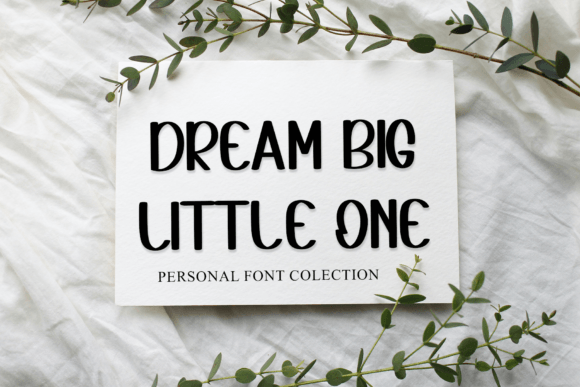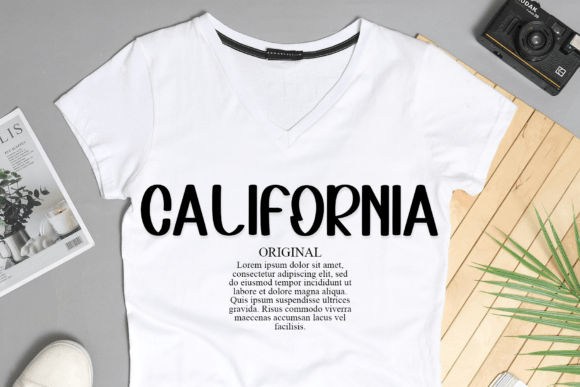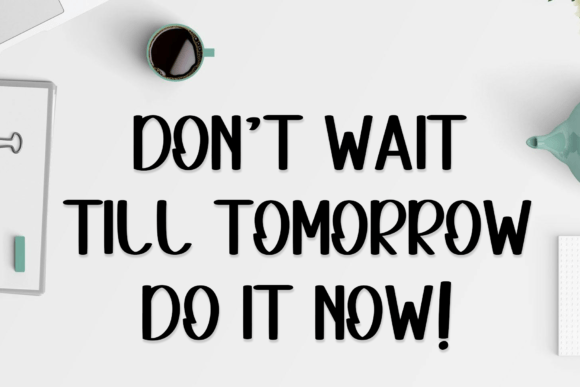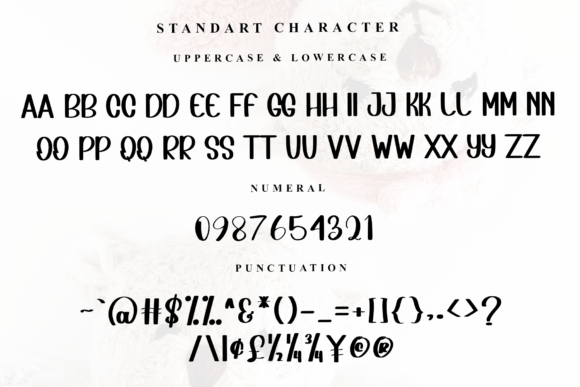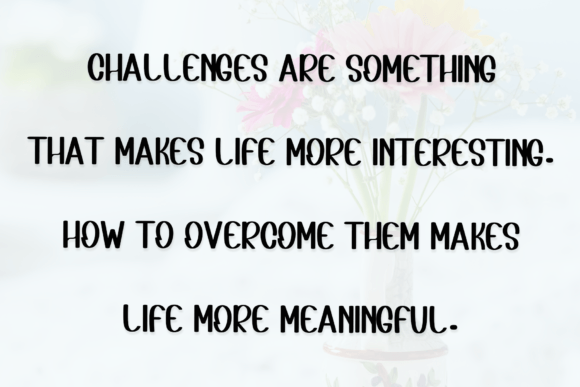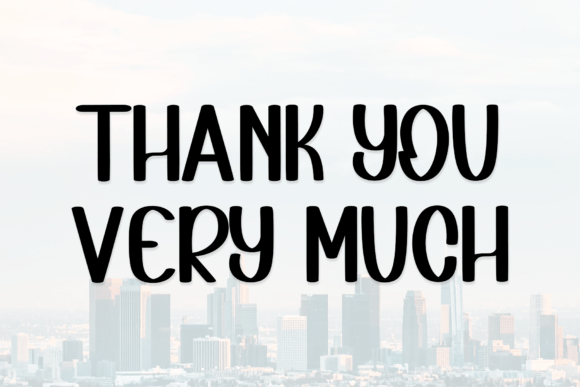
Introducing Farmhouse Font: The Perfect Blend of Freshness and Elegance
Are you looking for a font that can add a touch of warmth and personality to your design projects? Look no further than Farmhouse Font, a charming display font that embodies the essence of casual elegance and freshness. With its fluid strokes and organic lines, Farmhouse Font is perfect for designers and crafters who want to create visually appealing and engaging designs.
Farmhouse Font is a display font that is designed to evoke a laid-back vibe, reminiscent of a rustic farmhouse. Its unique and elegant design makes it perfect for a variety of design projects, including branding, invitations, social media graphics, and more. The font’s fluid strokes and organic lines give it a natural and effortless look that is sure to capture the attention of your audience.
- Fluid Strokes: Farmhouse Font features fluid strokes that give it a smooth and elegant look.
- Organic Lines: The font’s organic lines add a touch of naturalness and effortlessness to its design.
- Casual Elegance: Farmhouse Font embodies the essence of casual elegance, making it perfect for designs that require a touch of sophistication.
- Laid-Back Vibe: The font’s unique design evokes a laid-back vibe that is perfect for creating relaxed and casual designs.
Uses of Farmhouse Font
Farmhouse Font is a versatile font that can be used for a variety of design projects, including:
- Branding: Use Farmhouse Font to create unique and memorable brand identities that reflect your brand’s personality.
- Invitations: Add a touch of elegance and sophistication to your invitations with Farmhouse Font.
- Social Media Graphics: Use Farmhouse Font to create engaging and visually appealing social media graphics that capture the attention of your audience.
- Packaging: Farmhouse Font is perfect for packaging designs that require a touch of naturalness and elegance.
Why Choose Farmhouse Font?
There are many reasons why you should choose Farmhouse Font for your design projects. Here are a few:
- Unique Design: Farmhouse Font has a unique and elegant design that sets it apart from other fonts.
- Versatility: The font is versatile and can be used for a variety of design projects.
- Easy to Read: Farmhouse Font is easy to read, making it perfect for designs that require a clear and concise message.
- High-Quality: The font is of high-quality, ensuring that it looks great in any design project.
Here are a few tips for using Farmhouse Font in your design projects:
- Use it as a Display Font: Farmhouse Font is perfect for use as a display font, where it can be used to grab the attention of your audience.
- Pair it with Other Fonts: Experiment with pairing Farmhouse Font with other fonts to create a unique and visually appealing design.
- Use it for Headings: Use Farmhouse Font for headings and titles, where its elegant design can be showcased.
Farmhouse Font is a charming display font that is perfect for designers and crafters who want to add a touch of warmth and personality to their design projects. With its fluid strokes and organic lines, Farmhouse Font evokes a laid-back vibe that is sure to capture the attention of your audience. Whether used for branding, invitations, or social media graphics, Farmhouse Font is a versatile font that is sure to become a favorite in your design arsenal.